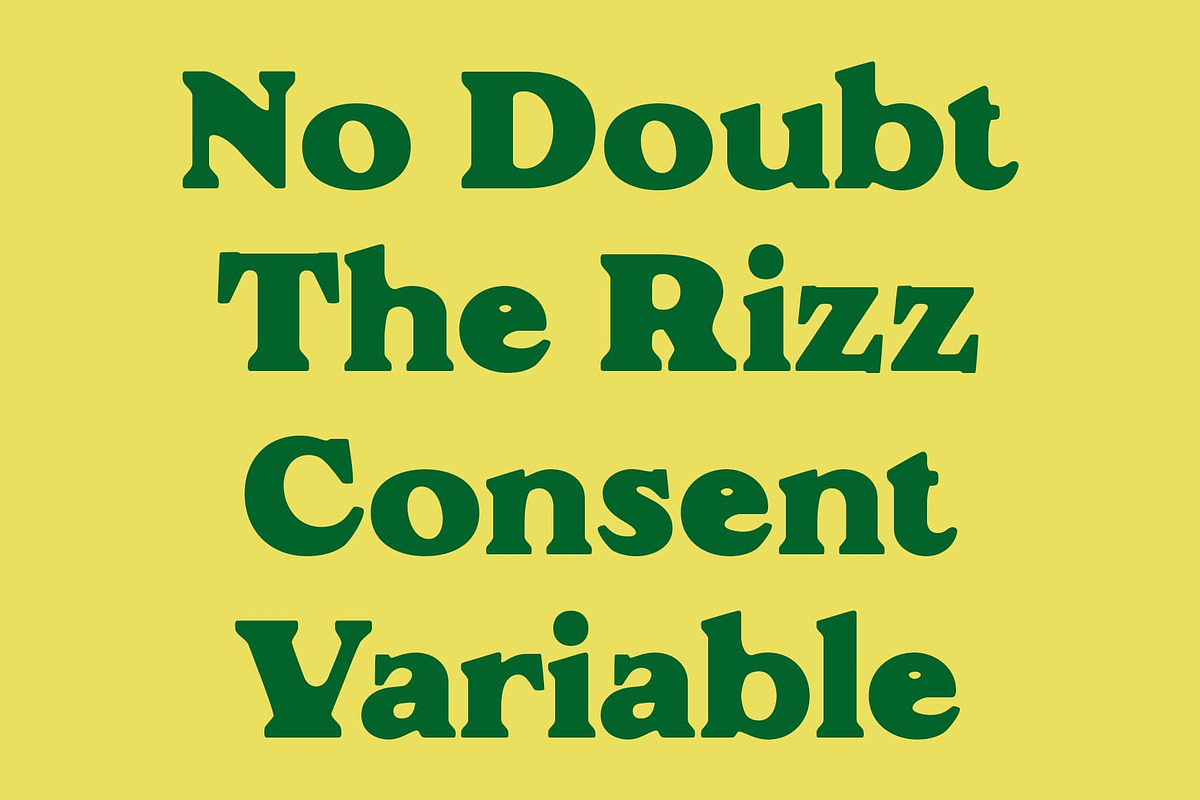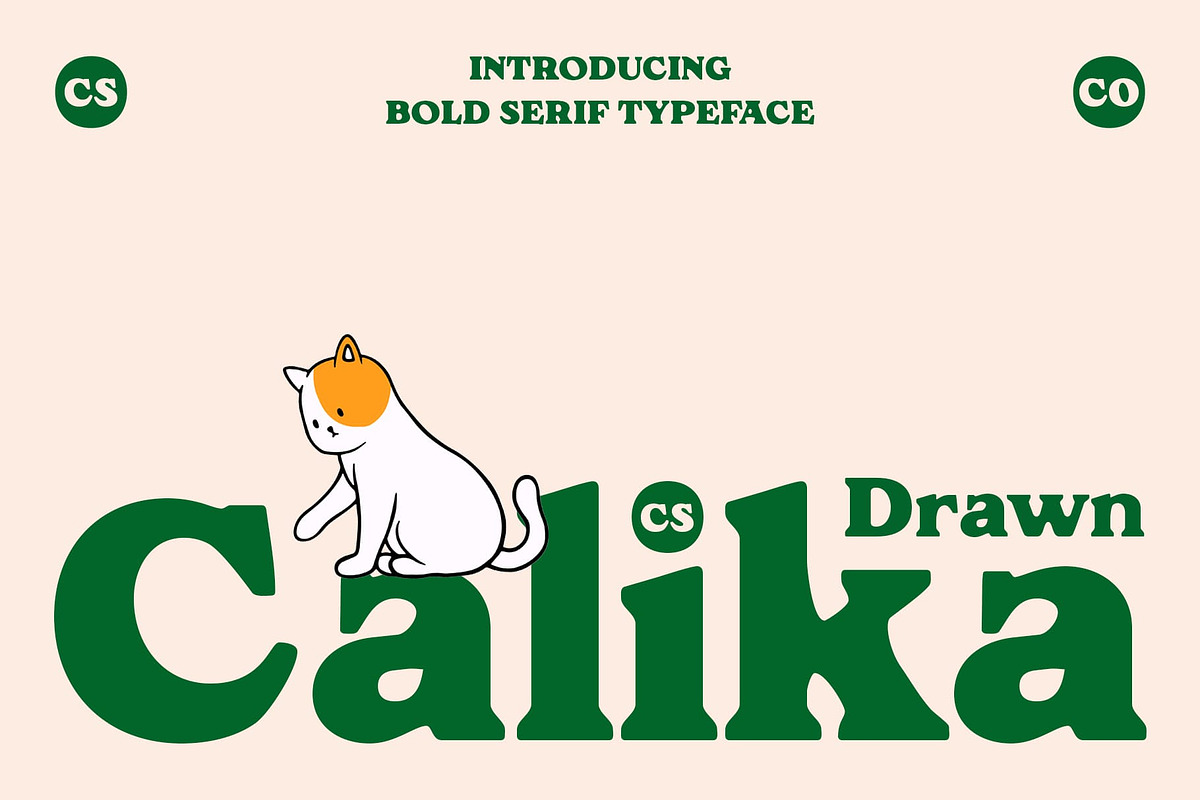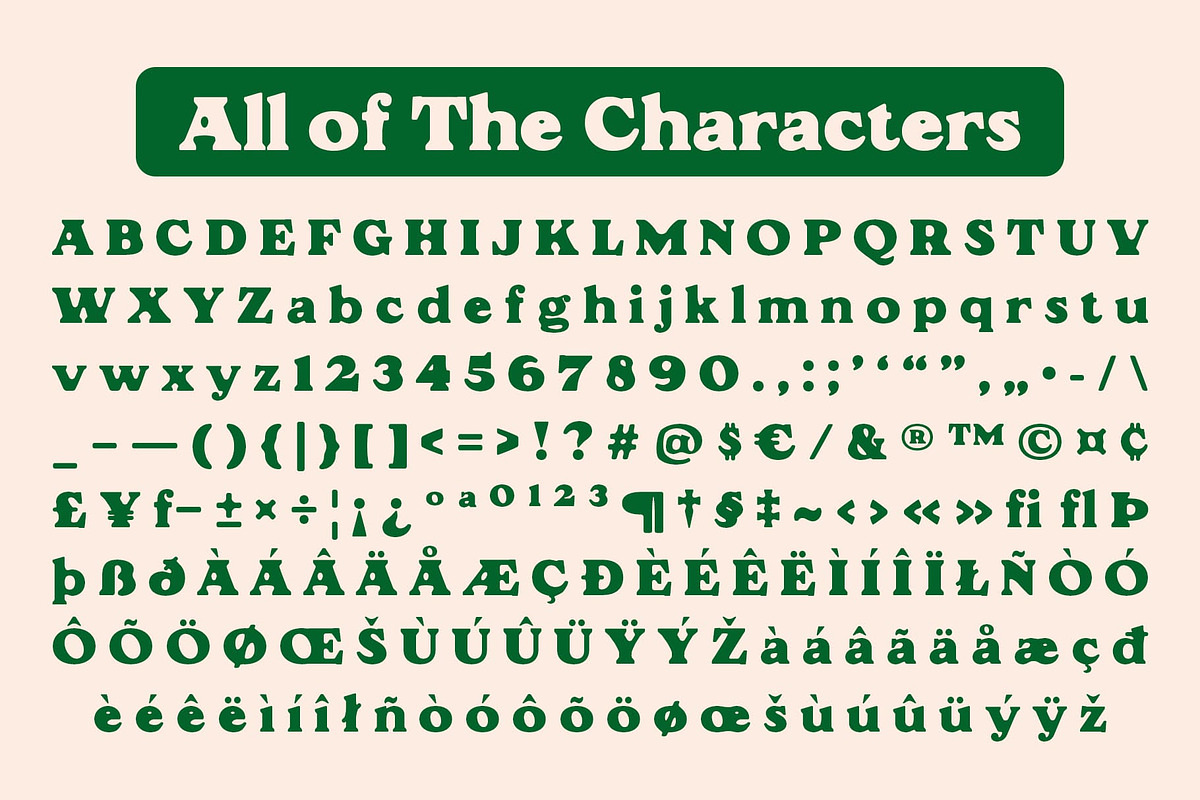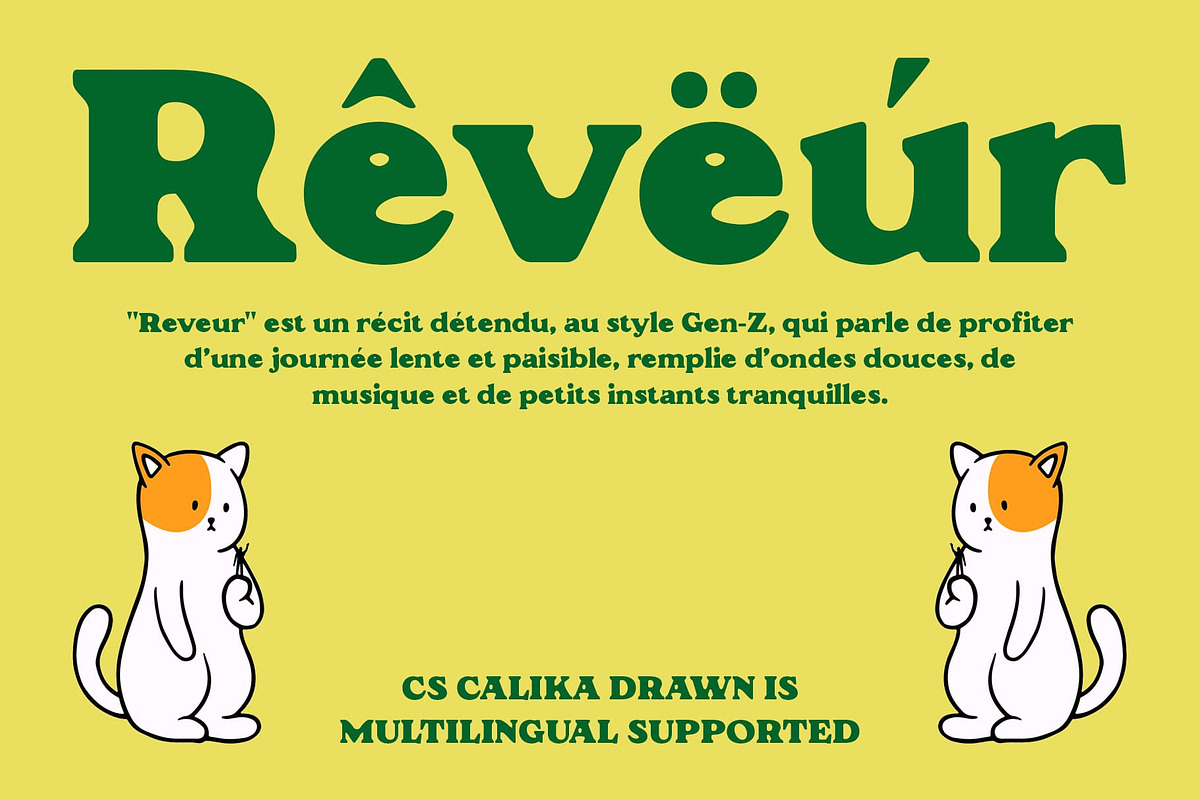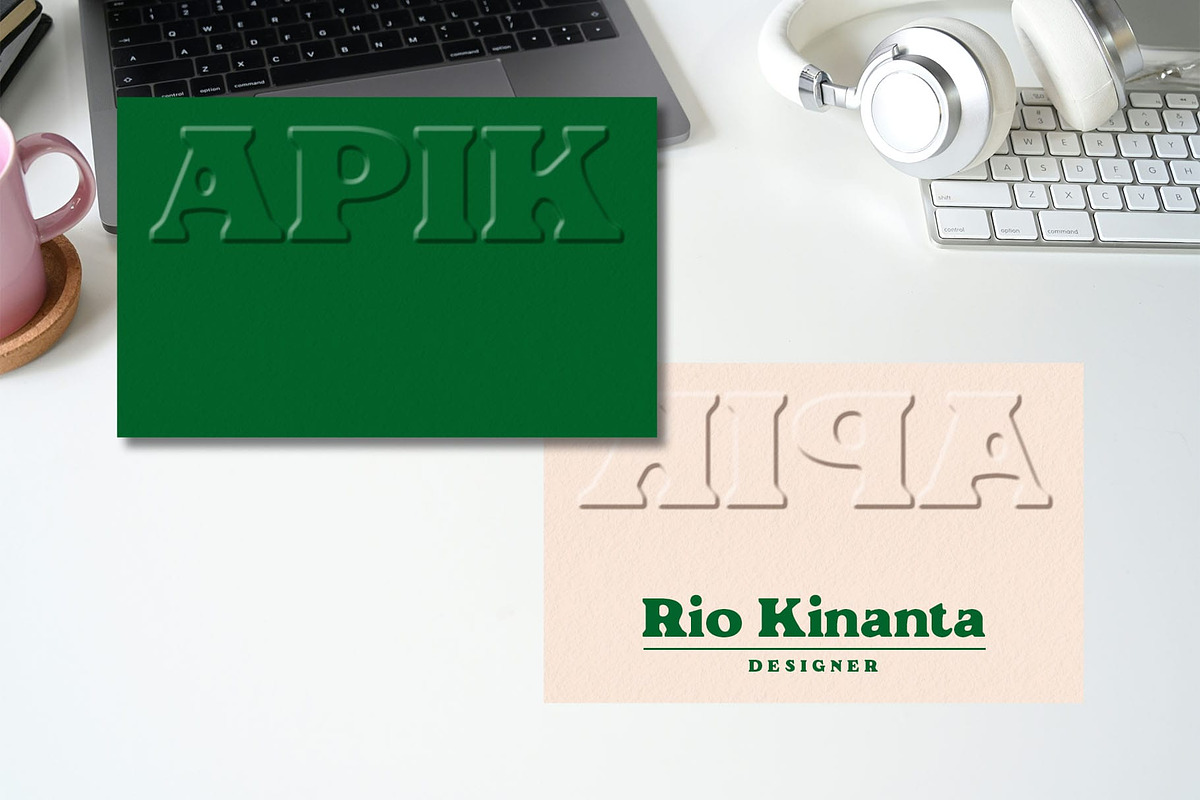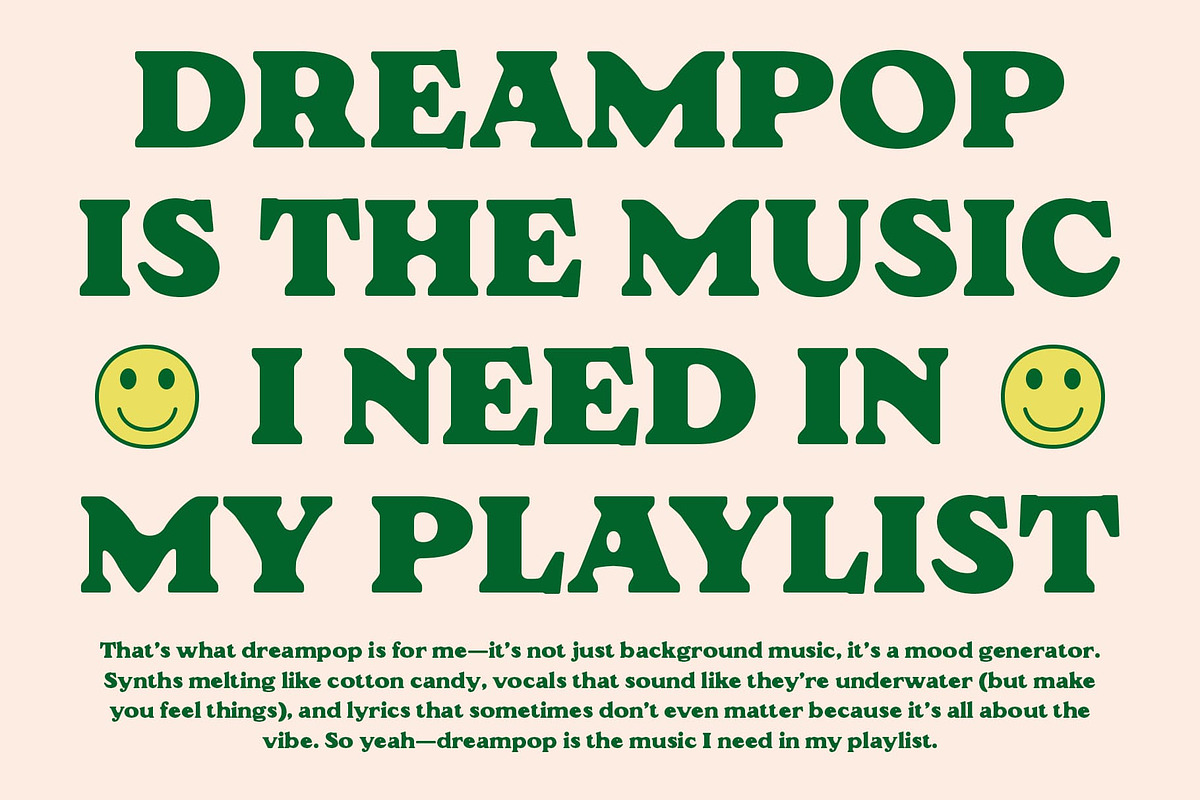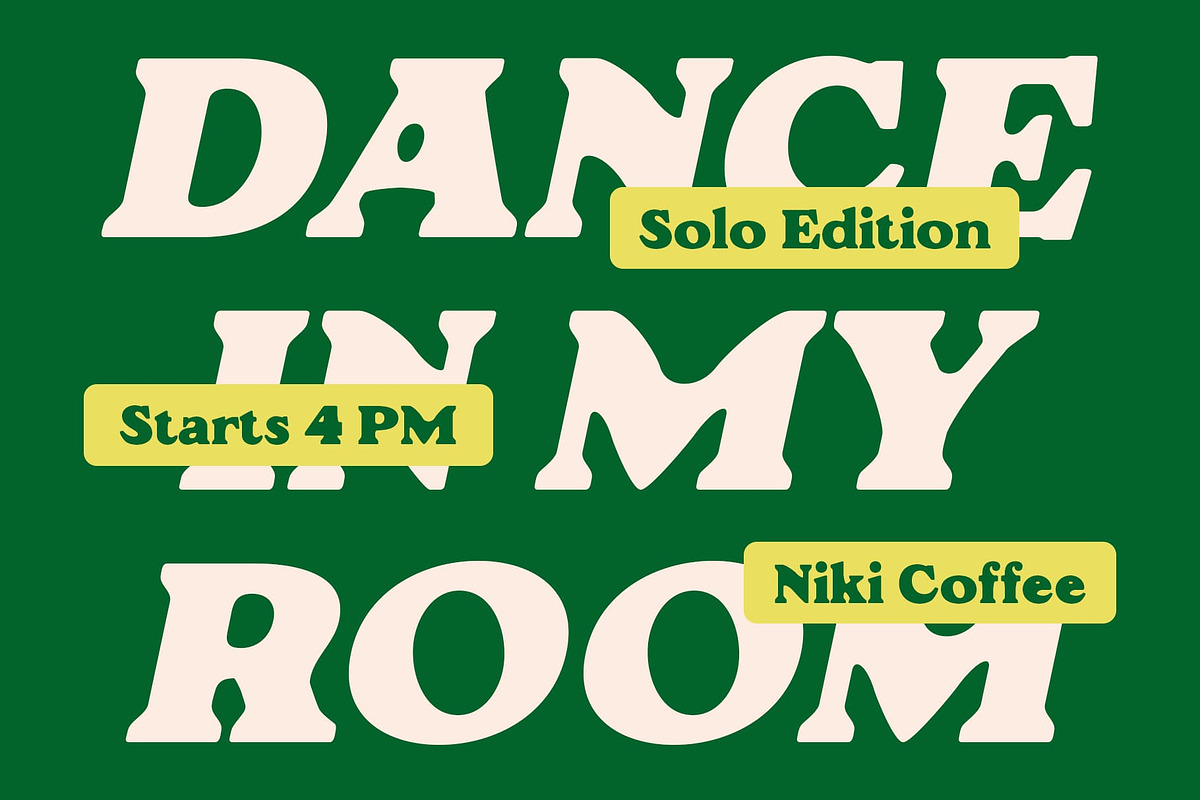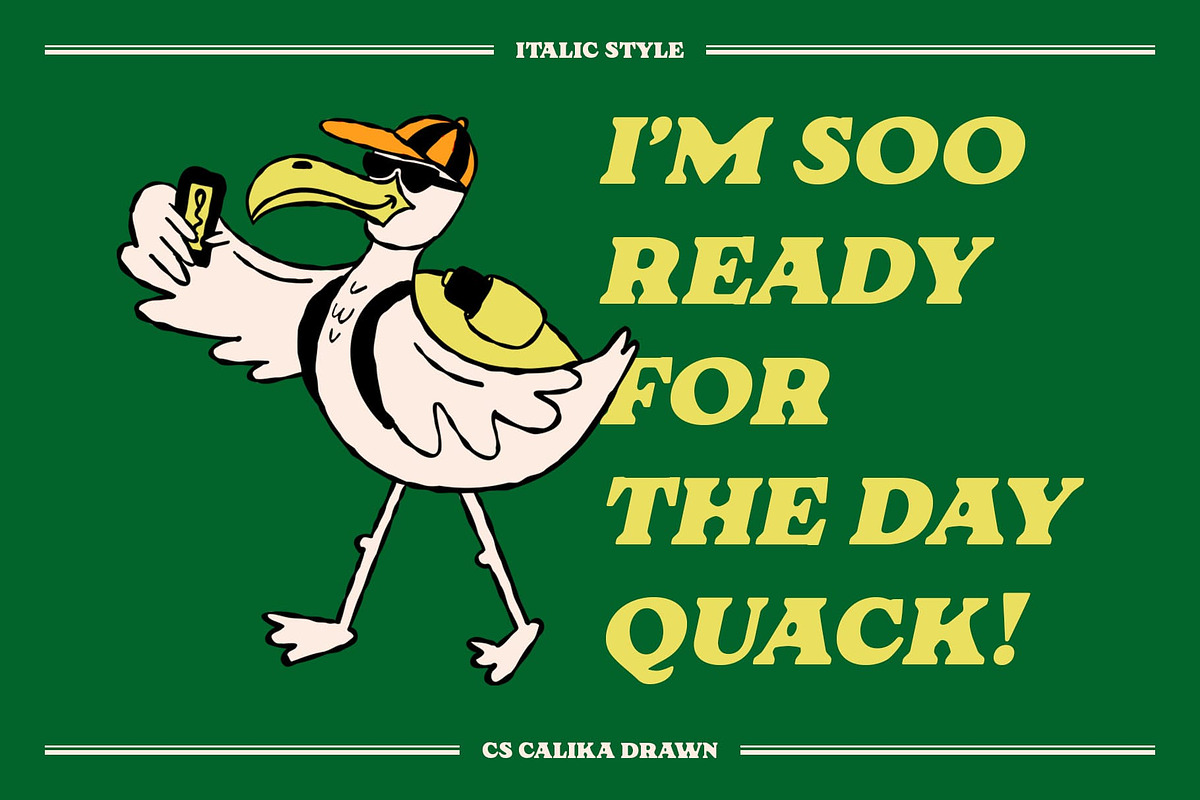
CS Calika Drawn
CS Calika Drawn – Serif Display Font: Where Retro Elegance Meets Artistic Grit
Bold Serif Structure with Classic Appeal This font is a serif display font that combines bold letterforms with a timeless 90s-inspired retro aesthetic. Its sturdy and ornamental shapes evoke a sense of vintage elegance while maintaining a clean, impactful presence ideal for statement pieces.
Hand-Drawn Texture for Personal Character What sets this classic font apart is its expressive hand-drawn effect, which introduces sketch-like textures across the letterforms. This rough yet artistic detail adds a layer of warmth and individuality—softening its structured serif base with a more personal, handcrafted feel.
Perfect for Nostalgic and Stylish Visuals This font is a natural choice for designs aiming to blend nostalgia with creativity. Whether you’re creating music posters, branding for retro-themed products, or editorial layouts with a distinctive flair, this artistic typeface delivers a look that is both stylish and emotionally resonant.
Versatile for Vintage-Driven Design Needs From fashion and lifestyle branding to creative packaging and expressive typography, this retro typeface fits a variety of design directions. Its combination of classic structure and raw artistic finish makes it ideal for projects that demand a balance between bold elegance and handmade charm.